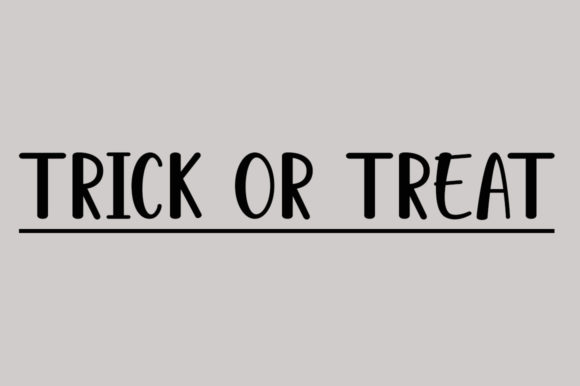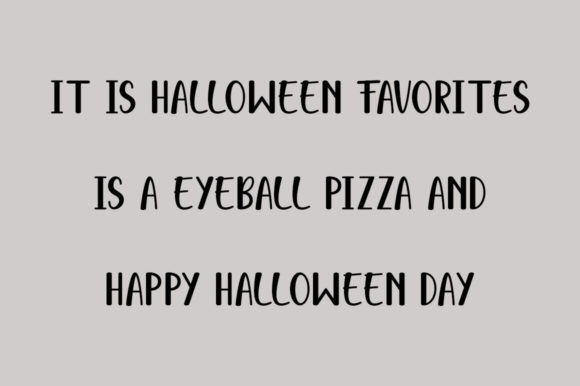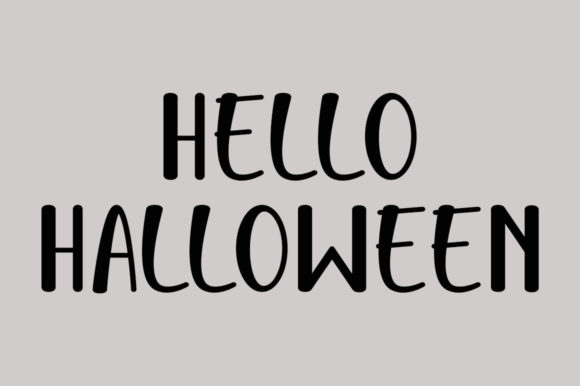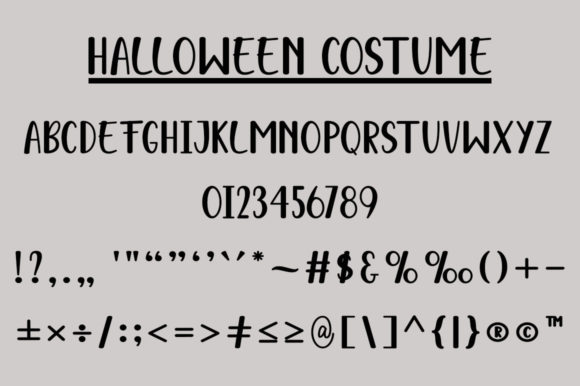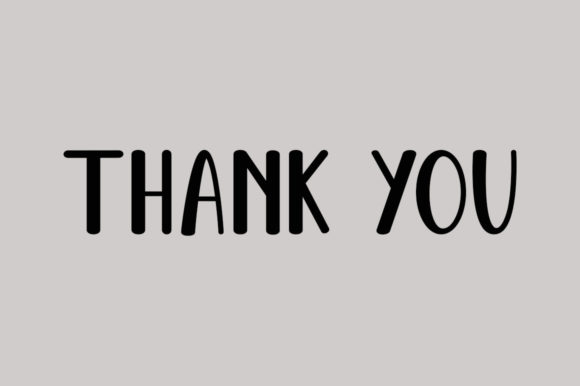
Unlock the Magic of Halloween Costume Font
As a designer, you’ve probably experienced that moment when the perfect font makes all the difference in a project. It’s like the missing piece of a puzzle that brings your creation to life. For me, it was when I stumbled upon the Halloween Costume Font – a game-changer that instantly elevated my designs.
This versatile display font is designed to bring a touch of whimsy and personality to any project, whether it’s a spooky Halloween-themed poster or a trendy fashion campaign. With its adaptable nature, Halloween Costume Font has the potential to become a valuable asset in your font library, allowing you to create unique and eye-catching designs that set you apart from the rest.
Halloween Costume Font Key Features
- Unique Characteristics: The font features a unique, hand-drawn design with intricate details and textures, adding a spooky and festive touch to any Halloween-themed project.
- Character Set: The font includes a wide range of characters, including uppercase and lowercase letters, numbers, and special characters, making it suitable for various applications.
Halloween Costume Font Review
Overall, I was excited to dive into the Halloween Costume Font, but my experience was a bit of a mixed bag. Here are my thoughts.
- Unique and spooky character set: The font does a great job of capturing the essence of Halloween with its creepy characters and symbols.
- Playful vibe: The font’s playful nature makes it perfect for creating fun and lighthearted designs, like party invitations or social media graphics.
- Good for titles and headings: The font is bold and eye-catching, making it ideal for titles and headings that need to stand out.
- Limited language support: The font doesn’t support many languages, which could be a problem for designers working on international projects.
- Not suitable for body text: While the font is great for titles and headings, it’s not the best choice for body text due to its busy and distracting nature.
- Not as versatile as other fonts: The font’s unique style may not be to everyone’s taste, and it may not be the best choice for designs that require a more neutral or professional tone.
The Halloween Costume Font is a fun and playful addition to any designer’s toolkit, but it’s not without its limitations. While it’s perfect for spooky-themed designs and playful titles, it may not be the best choice for more serious or professional projects. Overall, I’d recommend this font to designers who are looking for a unique and eye-catching solution for their Halloween-themed designs.
Halloween Costume Font Practical Application Guide
To get the most out of the Halloween Costume Font, try:
- Using it in combination with other spooky fonts for a unique look.
- Experimenting with different font sizes and colors to create a dramatic effect.
- Using it for titles or headings to add a touch of Halloween flair.
Halloween Costume Font is perfect for:
- Halloween party invitations and decorations.
- Spooky-themed social media posts and graphics.
- Creepy-themed presentations and reports.